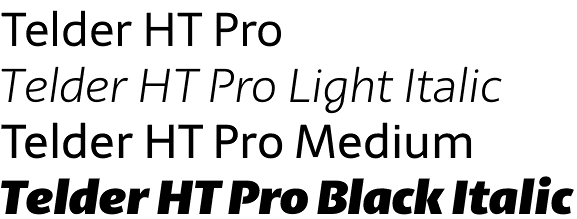
Telder HT Pro
Recently we, as people who take great interest in the field of type design, have been very fortunate to witness a certain process. Latin America has always had traditions in that field, but presently it wins more and more recognition as one of its main centers with scores of very talented designers introduced each year. Today we are happy to review the work of another debutant on our site, this time from Argentina.
Telder HT Pro is a contemporary sans serif font family designed by Andrés Torresi. It has a pronounced humanist look and a very good legibility. The typeface is distinctive with its low contrast, wide proportions and open counter forms, the combination of which account for a very plain and neutral appearance. Telder HT Pro is supplied in 10 weights – Thin, Ultra Light, Light, Regular, Medium, Semi Bold, Bold, Extra Bold, Black and Heavy, each with its true Italics. There are more than 1000 glyphs per font with OpenType features including discretionary ligatures, stylistic alternates, accented characters, small caps, ordinals, numbers and fractions, arrow, etc. Also there is extended language support provided for Basic Latin, Western European, Central European, Vietnamese and Afrikaans. All in all Telder HT Pro could be a perfect choice for longer texts both in print and on the screen.
Telder HT Pro font family is designed by Andrés Torresi and is released by Huerta Tipográfica – a type foundry that combines the efforts of four talented Argentine designers. Andrés Torresi himself graduated from Universidad Nacional de Cuyo, Mendoza and later completed his studies in Universidad de Buenos Aires. Ever since his graduation he has been working in the fields of type design, web design and programming. Judging by Telder HT Pro he has gained significant experience and has a great skill which makes us impatiently look forward to his next project.